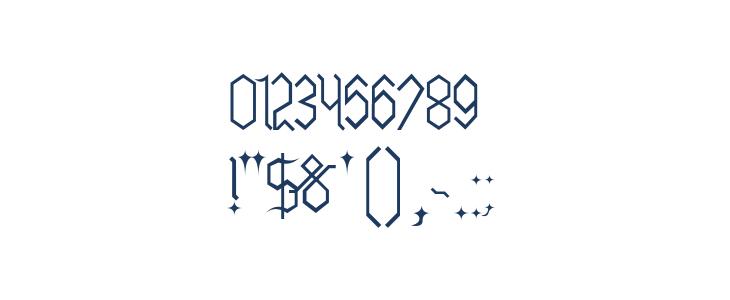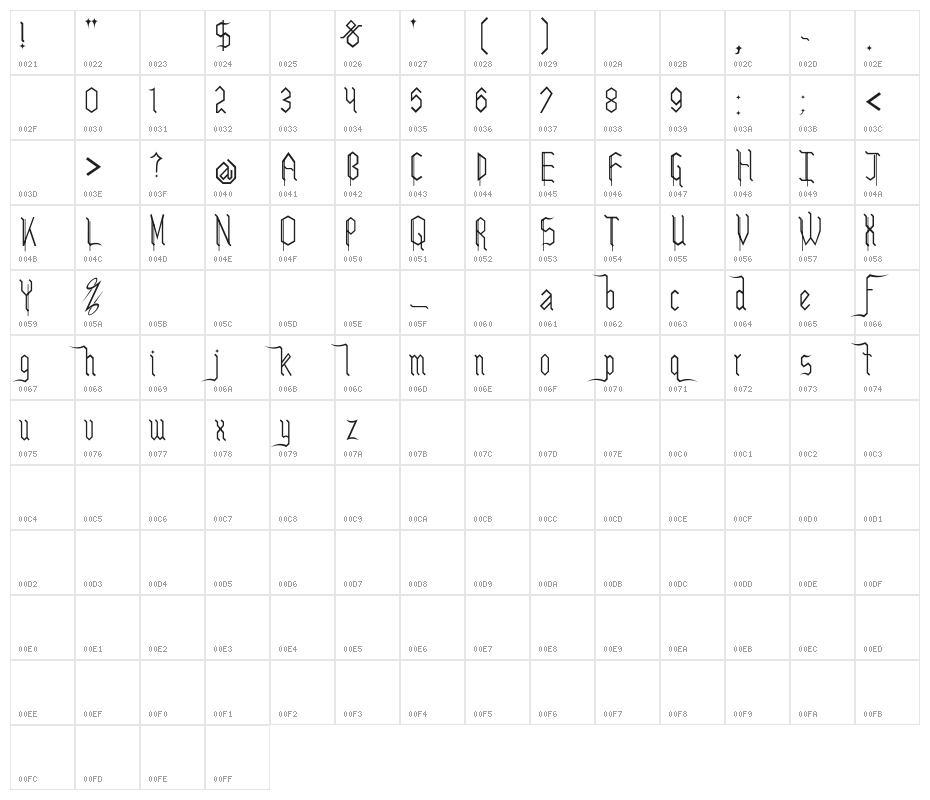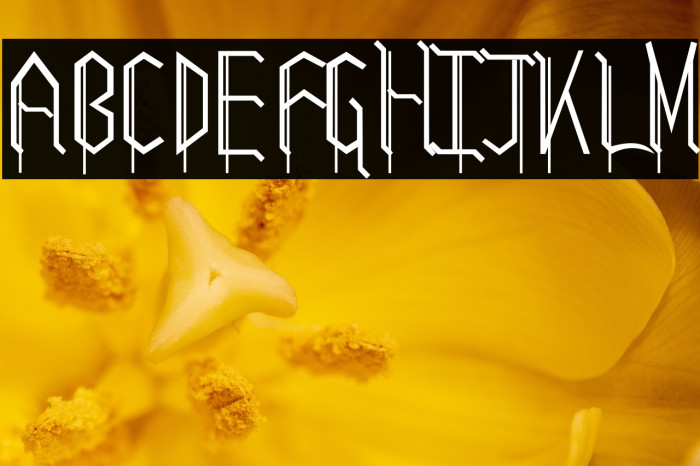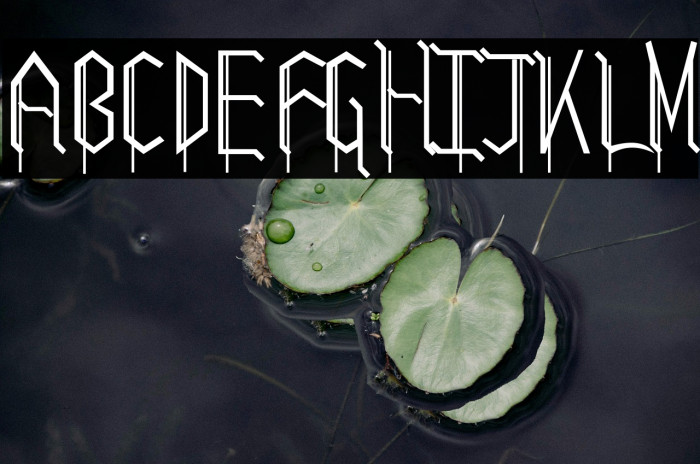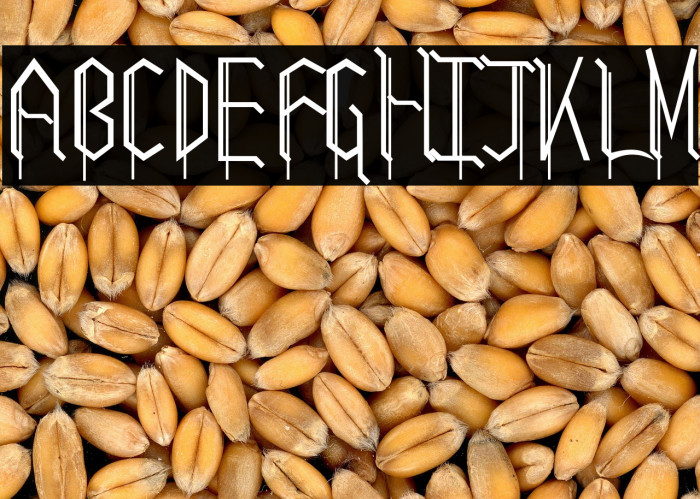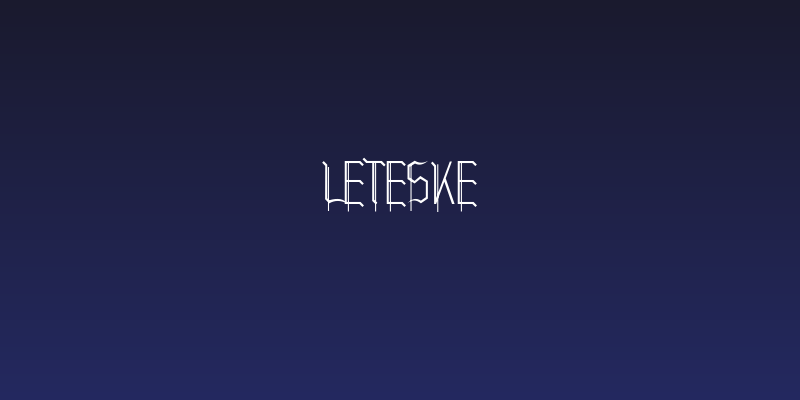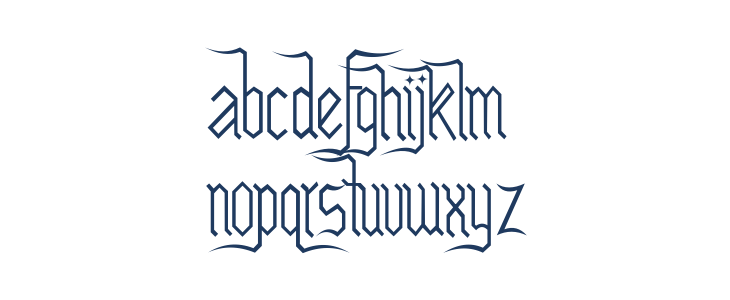
Leteske Font
Leteske Description
This font features a striking and intricate design, reminiscent of Gothic or medieval script. The characters are elongated with sharp, angular edges and decorative flourishes that give it a distinct, ornate appearance. The uppercase letters are tall and narrow, while the lowercase letters maintain a consistent style with slightly more curves. Numbers and special characters follow the same elaborate design, making the font suitable for artistic and decorative purposes. Its unique style is both eye-catching and sophisticated, ideal for projects that require a touch of elegance and historical flair.